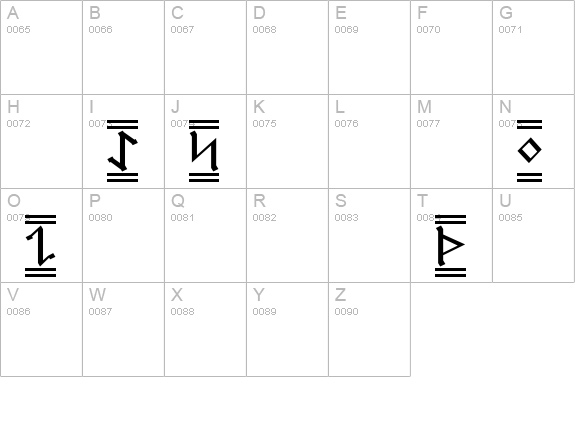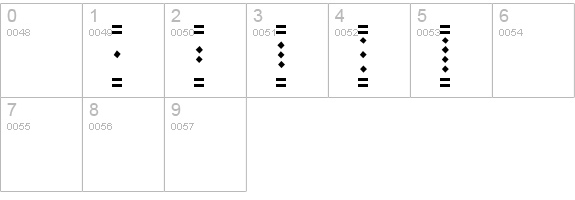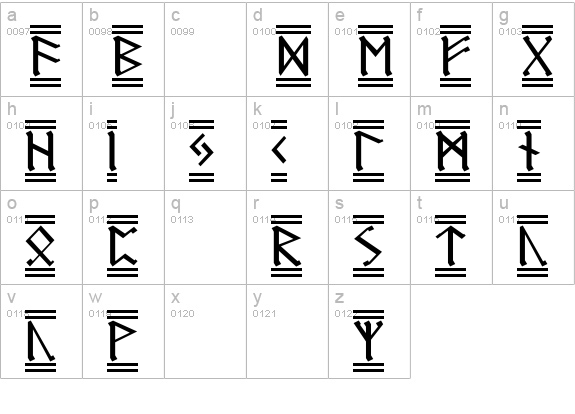
Germanic Runes 2 Font Details
Germanic Runes 2 font is a beautifully crafted typeface inspired by the ancient runic symbols used by Germanic tribes. Each character in this font exudes a sense of mystery and power, evoking the rich history and culture of the Germanic people. The intricate design of the runes adds a unique and enchanting touch to any project, whether it be for a logo, poster, or tattoo design. What sets Germanic Runes 2 font apart is its modern twist on traditional runic symbols, making it perfect for contemporary designs that seek to connect with the past. The clean lines and sharp angles of the characters give the font a sleek and sophisticated look, while still maintaining the ancient allure of the runic alphabet. Best of all, Germanic Runes 2 font is available for free download at FontsMarket.com. Whether you are a designer looking to add a touch of history to your work or simply a fan of ancient symbols, this font is sure to captivate and inspire. Download Germanic Runes 2 font today and unlock the power of the past for your creative projects.